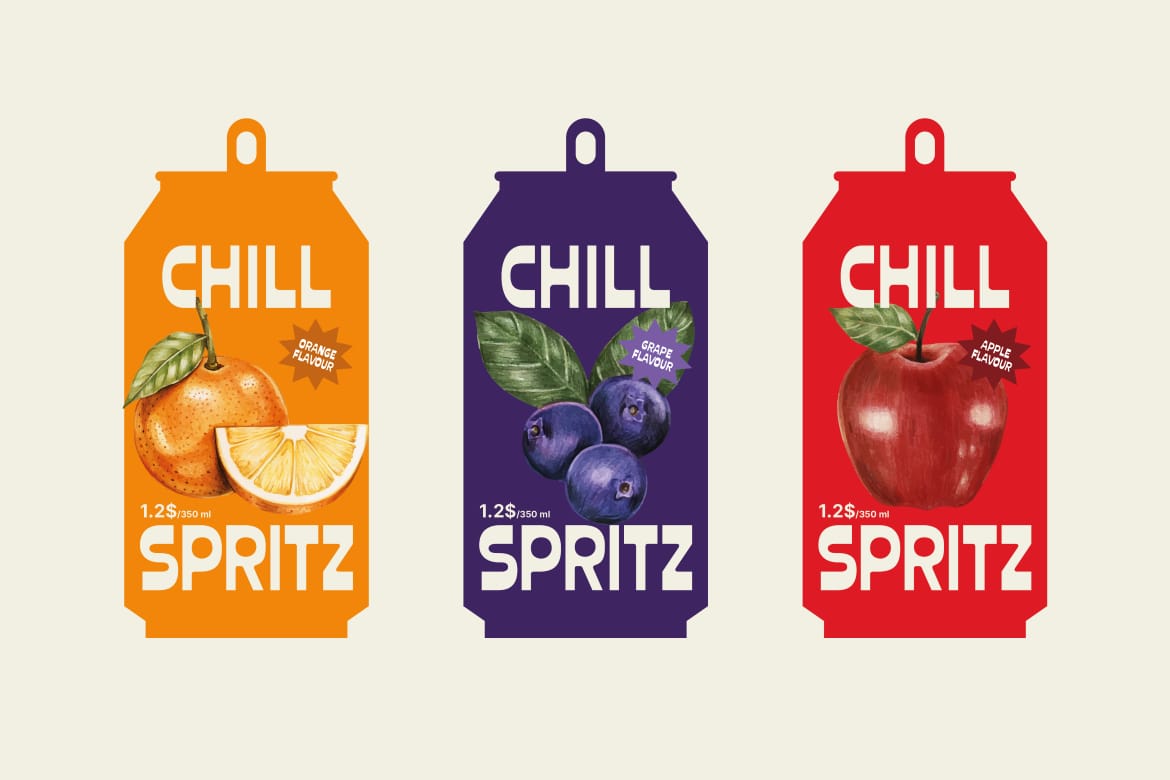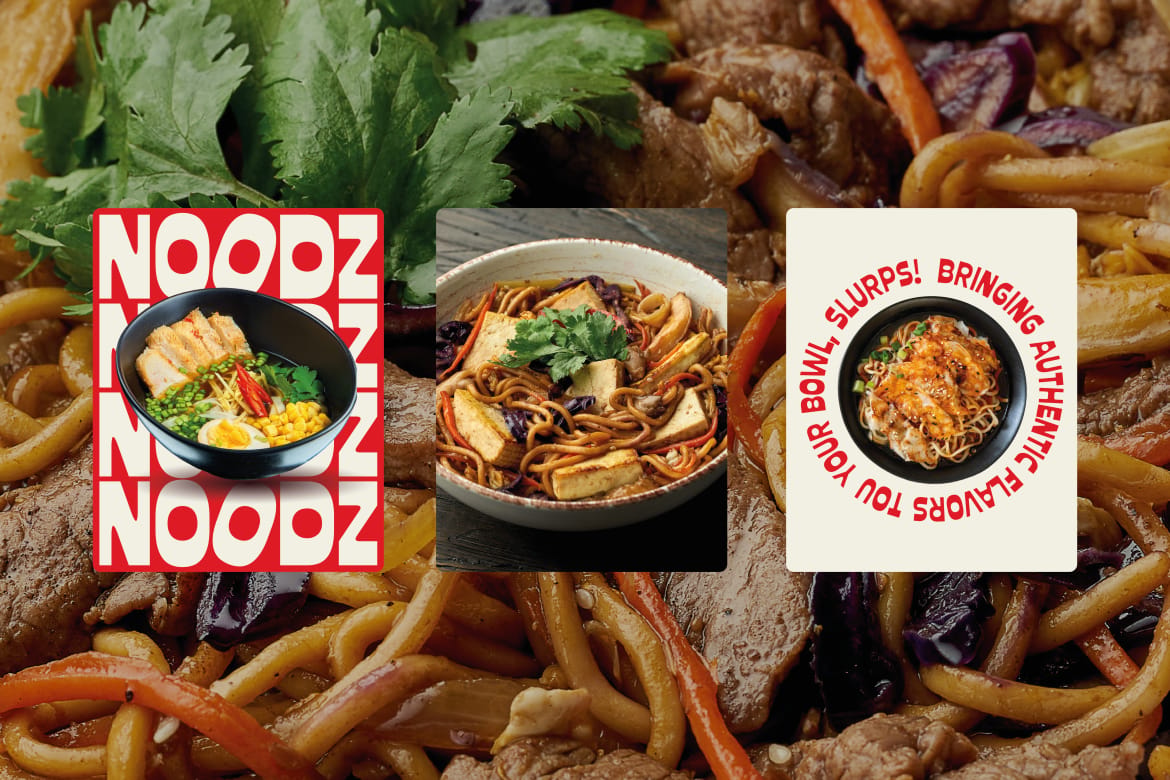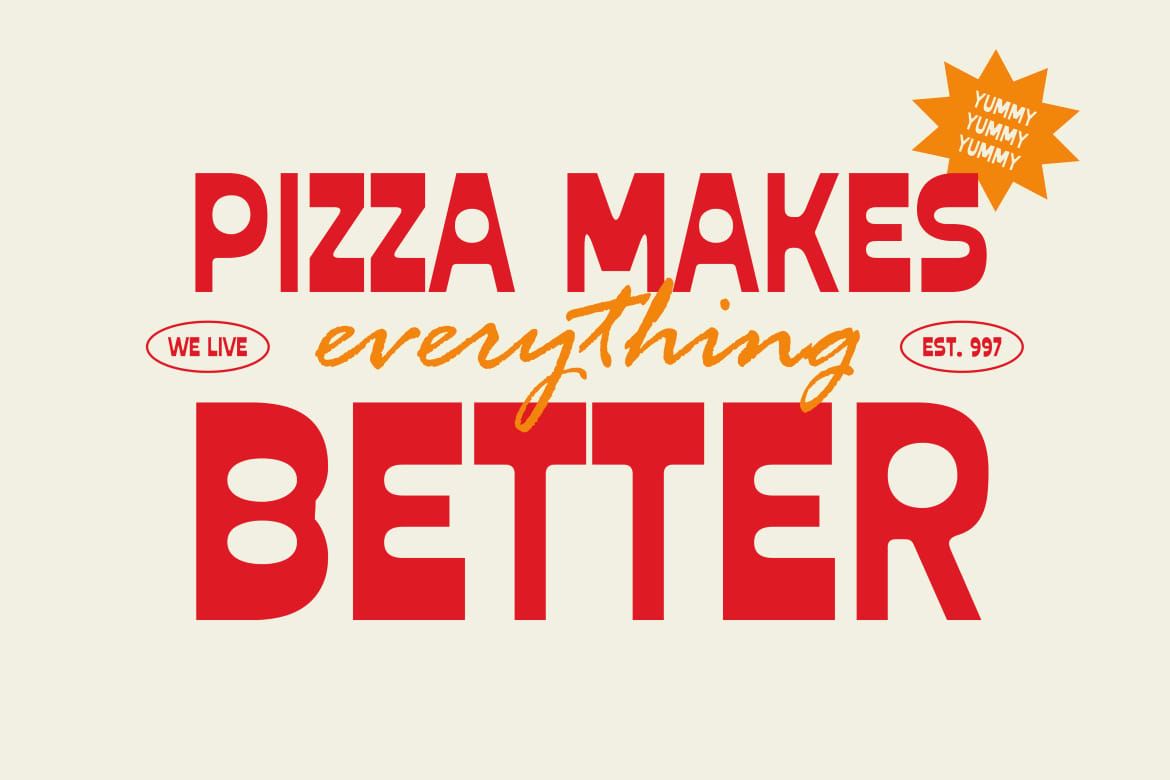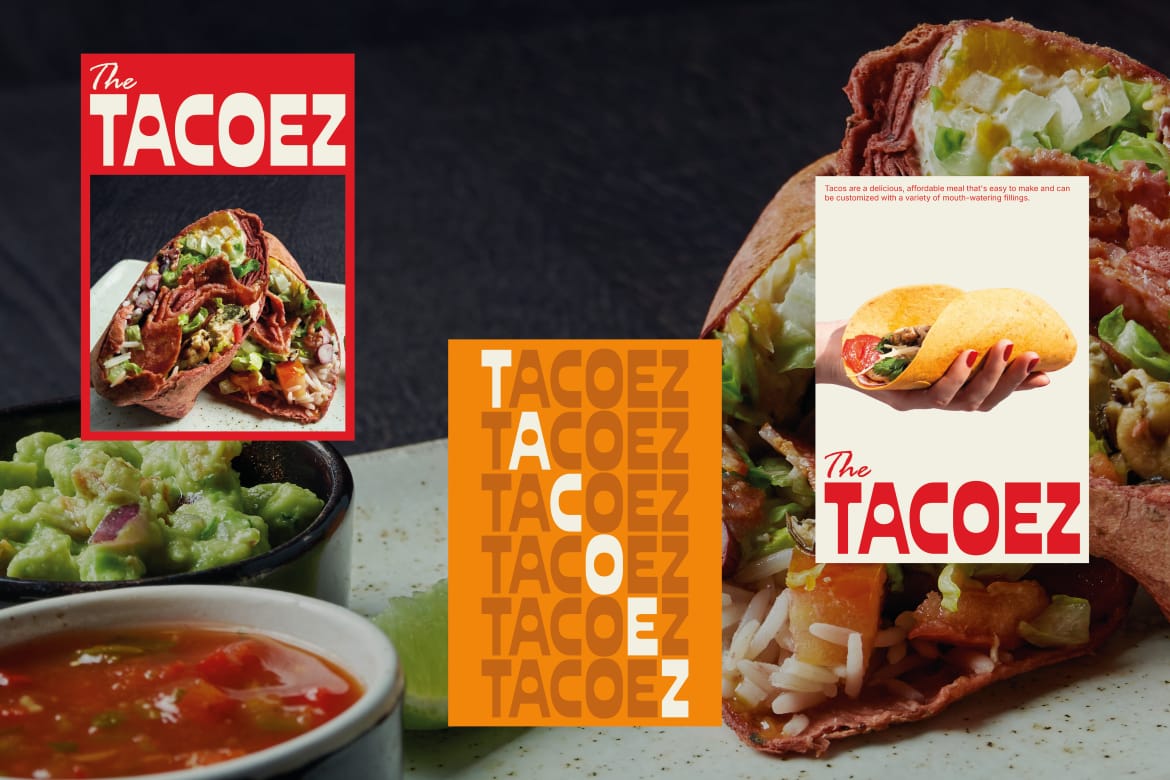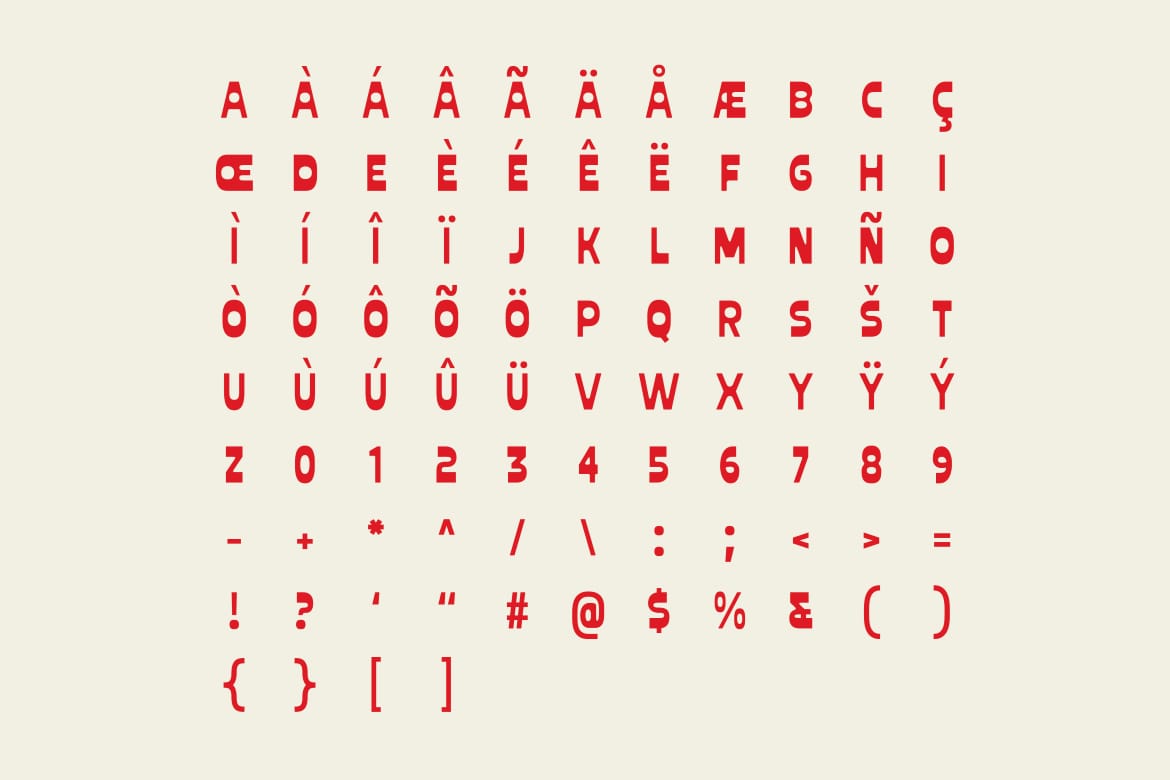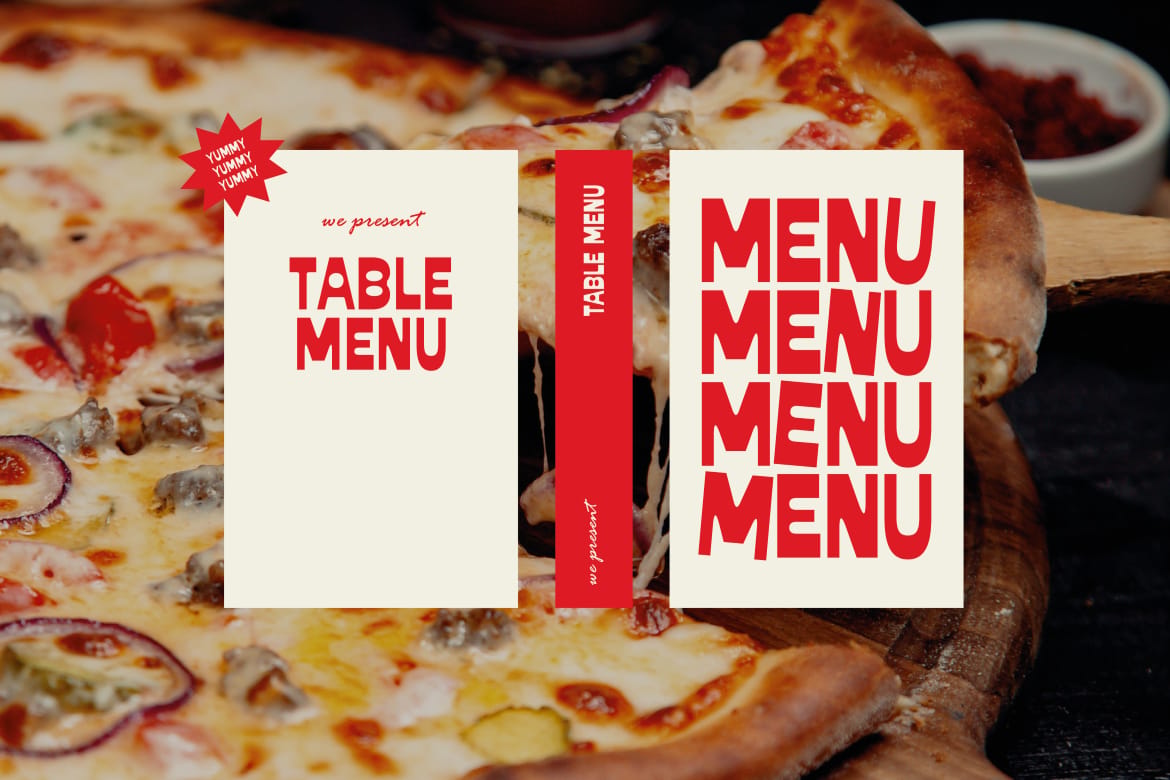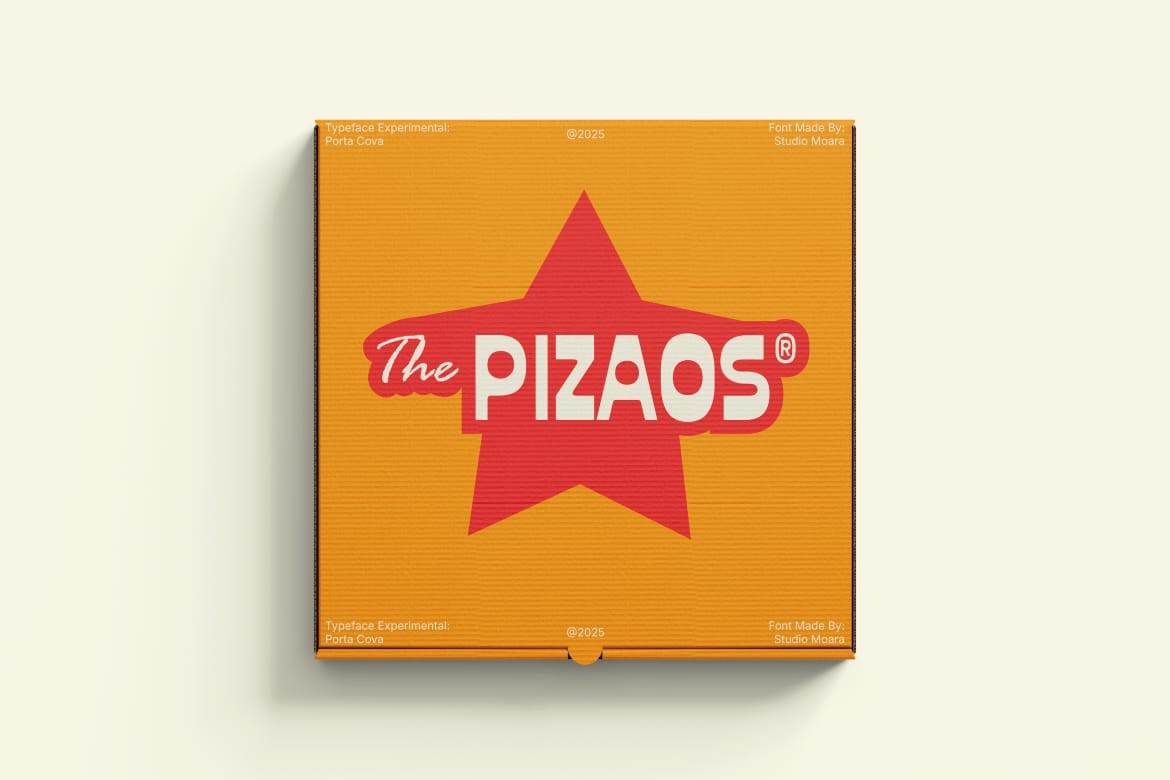
Porta Cova is a bold and modern display font with a retro touch. Featuring clean lines and geometric shapes, it’s perfect for eye-catching headlines, branding, posters, and packaging. With a playful yet sophisticated style, Porta Cova brings a fresh, dynamic feel to any design project.
Futuristic geometric display with a clean retro-modern vibe
Perfect for tech branding, poster headlines, and experimental creative projects
Unique cutout letterforms create a bold visual identity that feels stylish and memorable